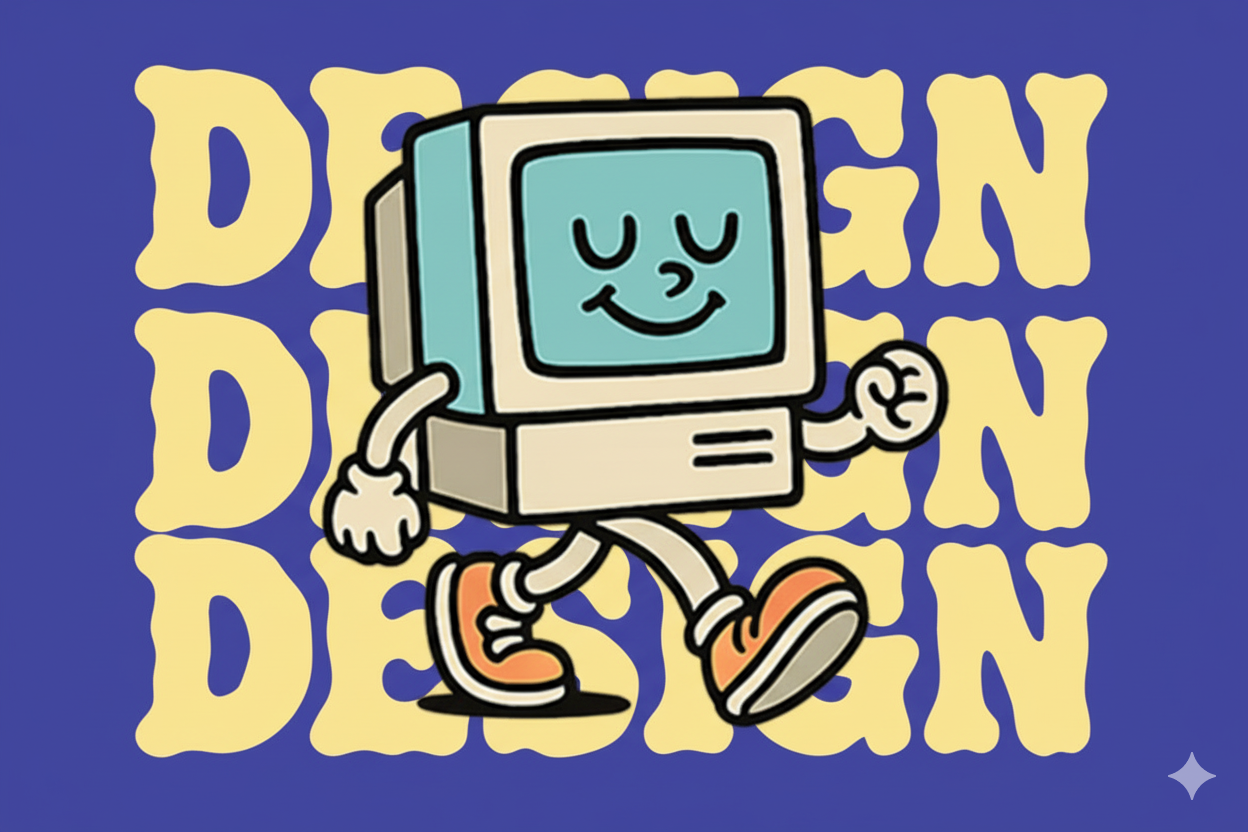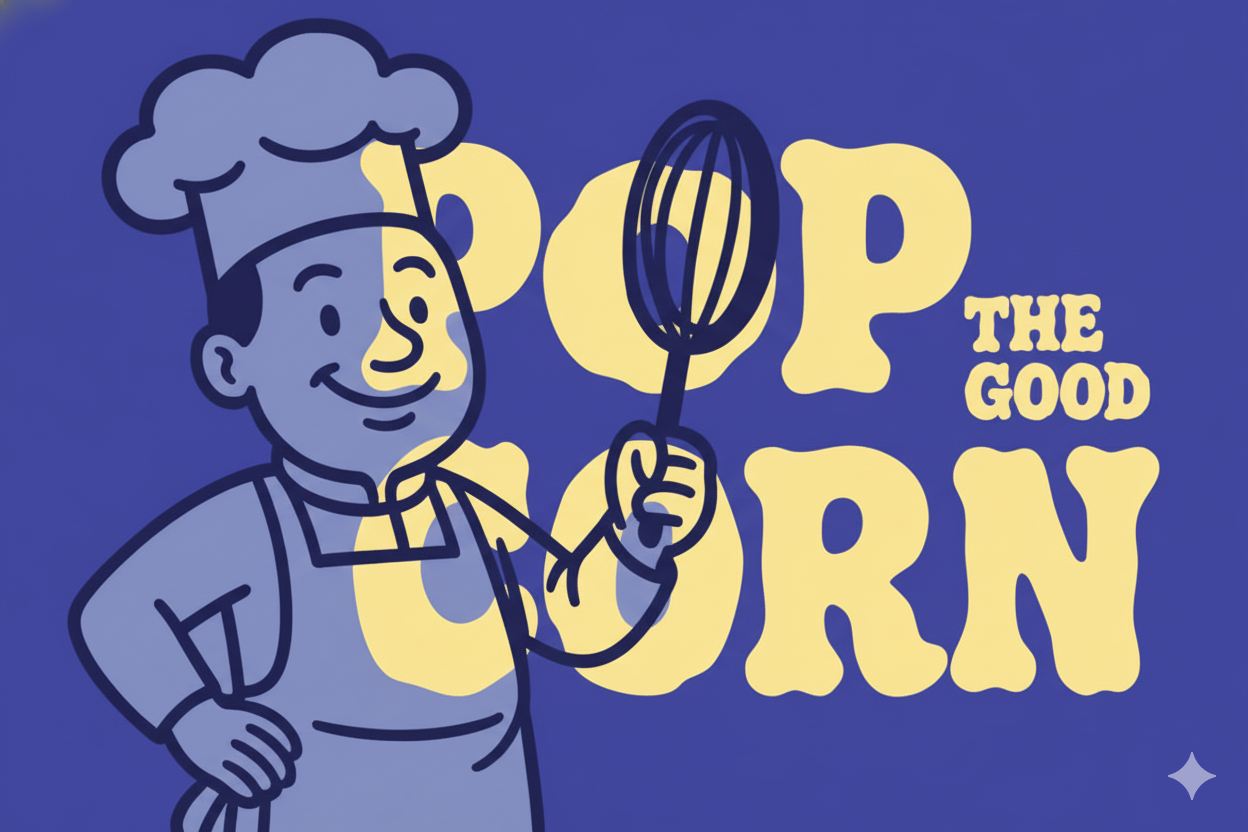
Bord Mage: The Bold, Bubbly Retro Display Font
Capture the fun, unforgettable energy of the past with **Bord Mage**, a charming and powerfully **playful retro display font**. Featuring thick, **bold, bubbly curves** and a definitive **groovy vintage vibe**, this typeface is your go-to solution for projects that demand a look that is both nostalgic and currently trending.
Designed specifically for large format display, **Bord Mage** excels in creating instant visual appeal. Use it to inject personality into product **packaging**, create standout **posters**, craft unique **logos**, or design vibrant **social media graphics** that capture a fun, throwback feeling.
Key Features & Inclusions:
- Groovy Vintage Style: Distinctive bubbly curves that scream 60s and 70s aesthetics.
- Full Character Set: Includes **Uppercase and lowercase characters**, Numerals, and Punctuation (OpenType Standard).
- Global Ready: Supports **Multilingual Accents** for wider international use.
- Perfect for Display: Optimized for large sizes (Posters, Headlines, Logos).